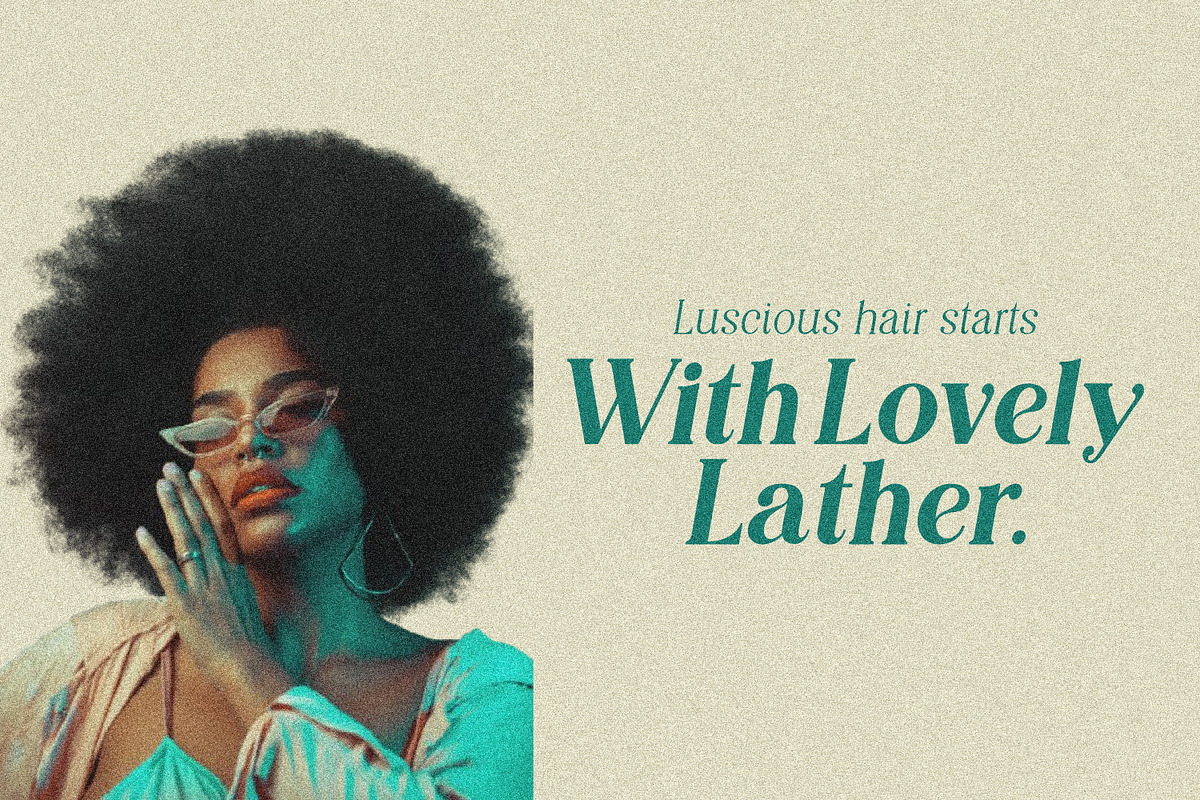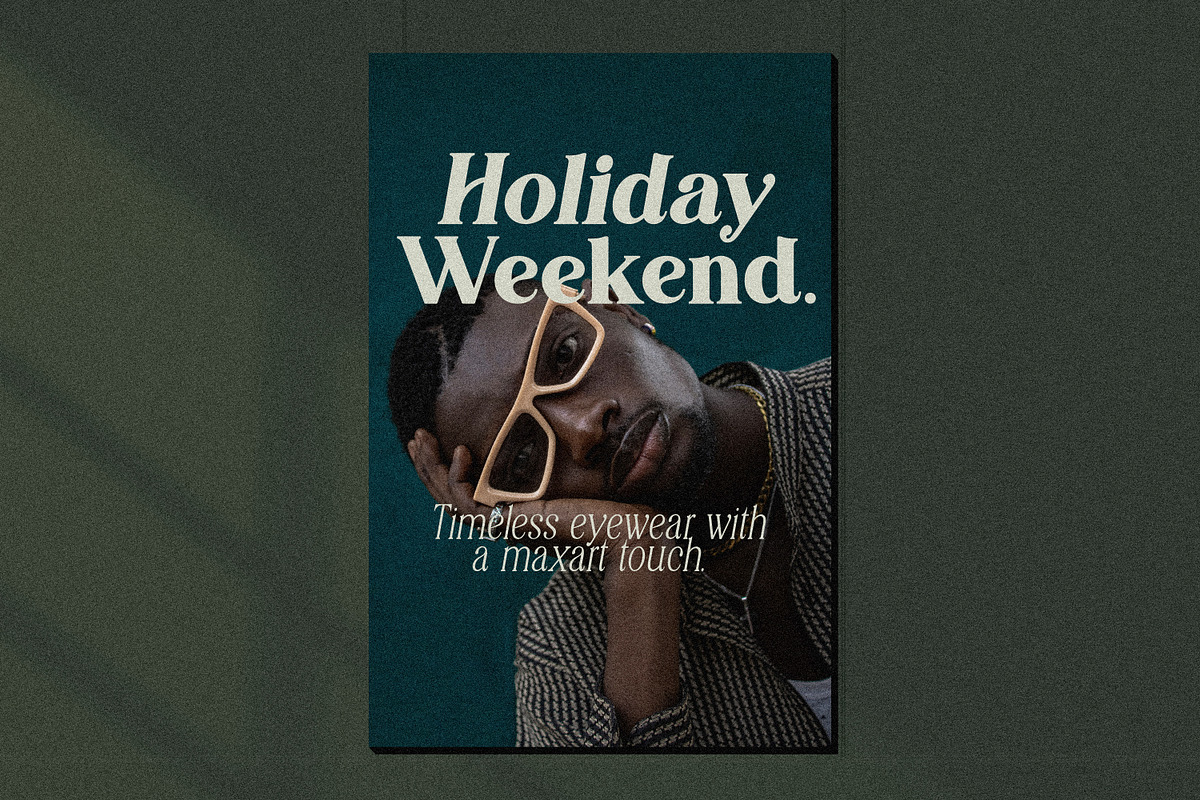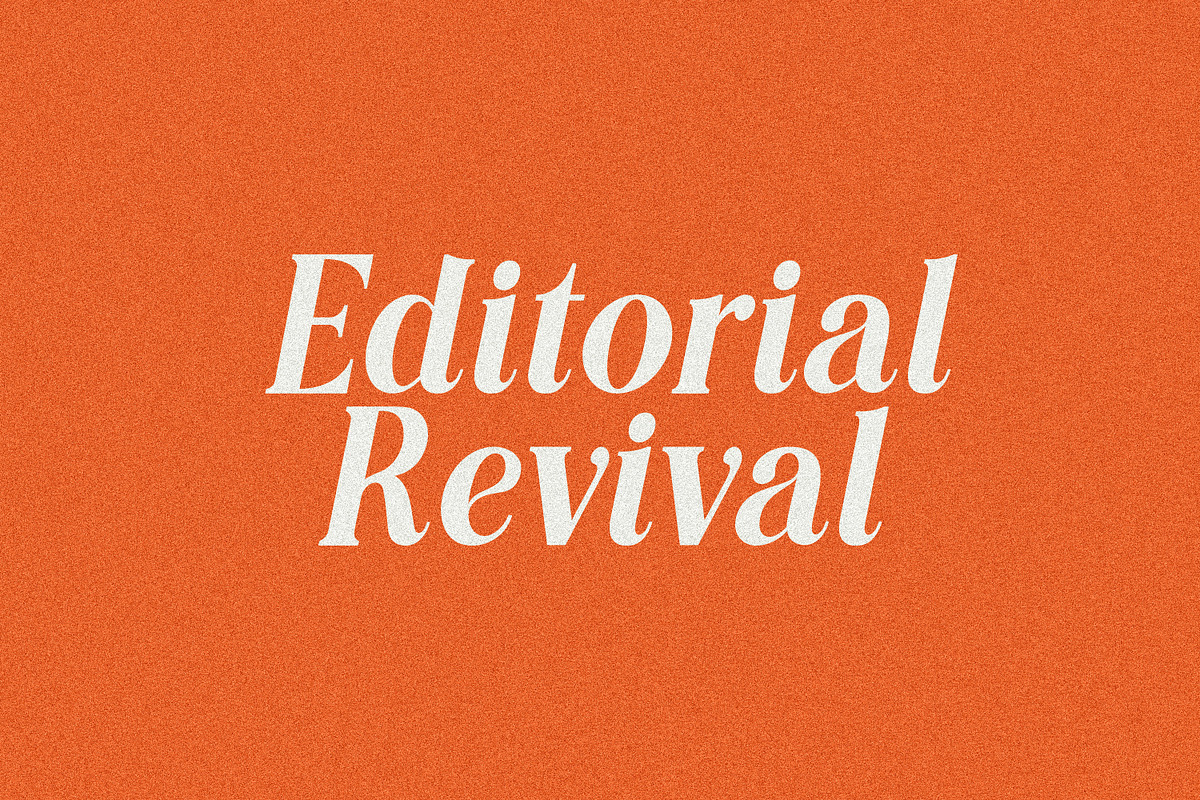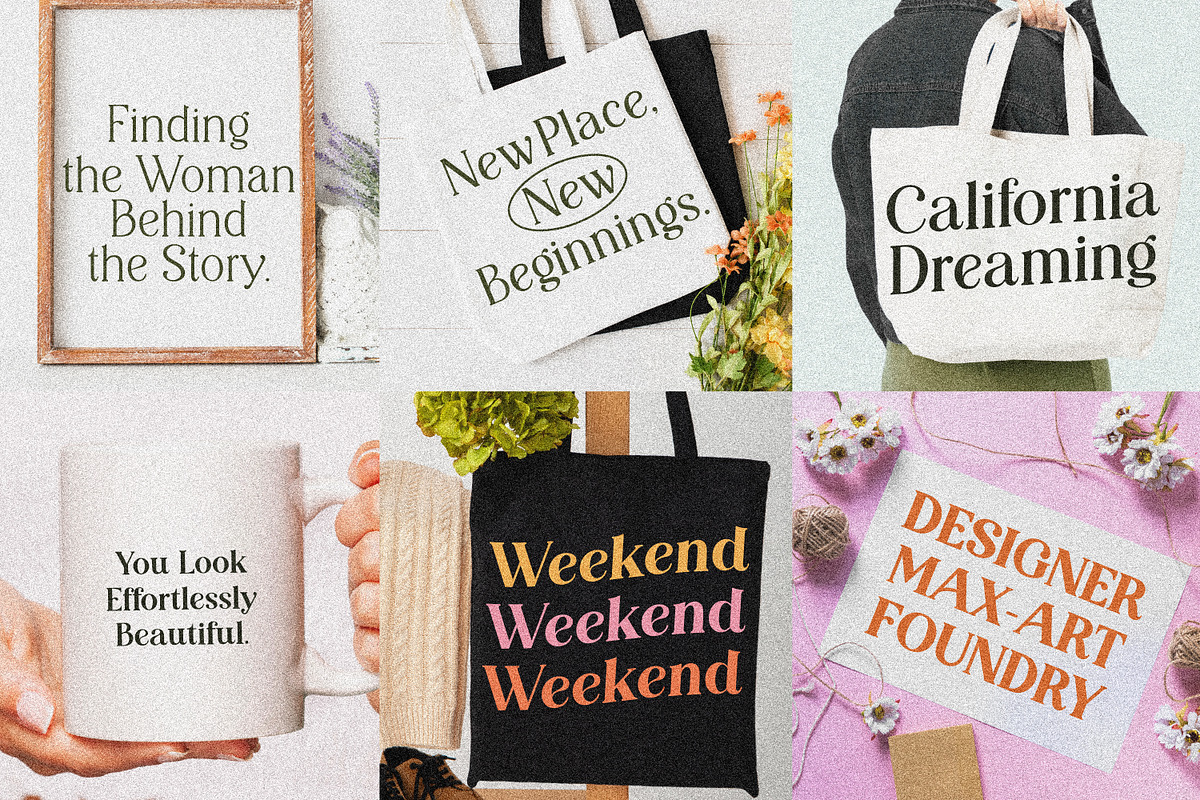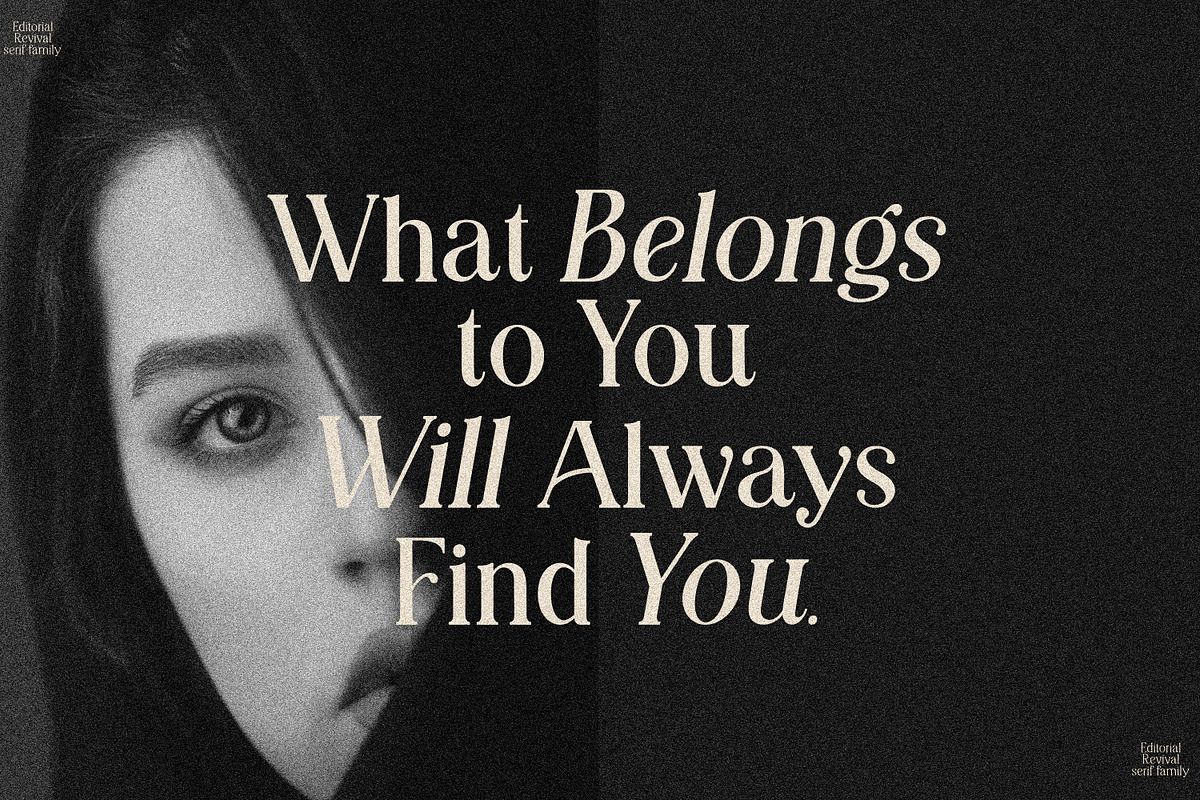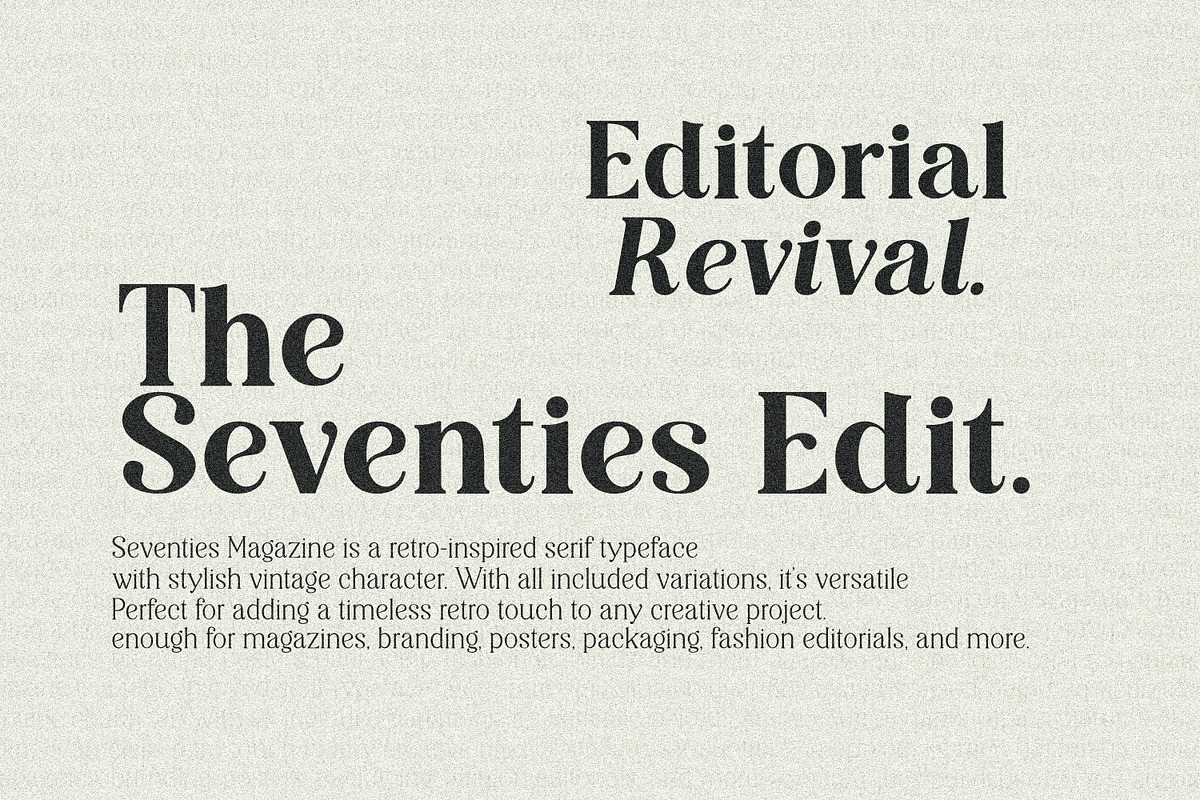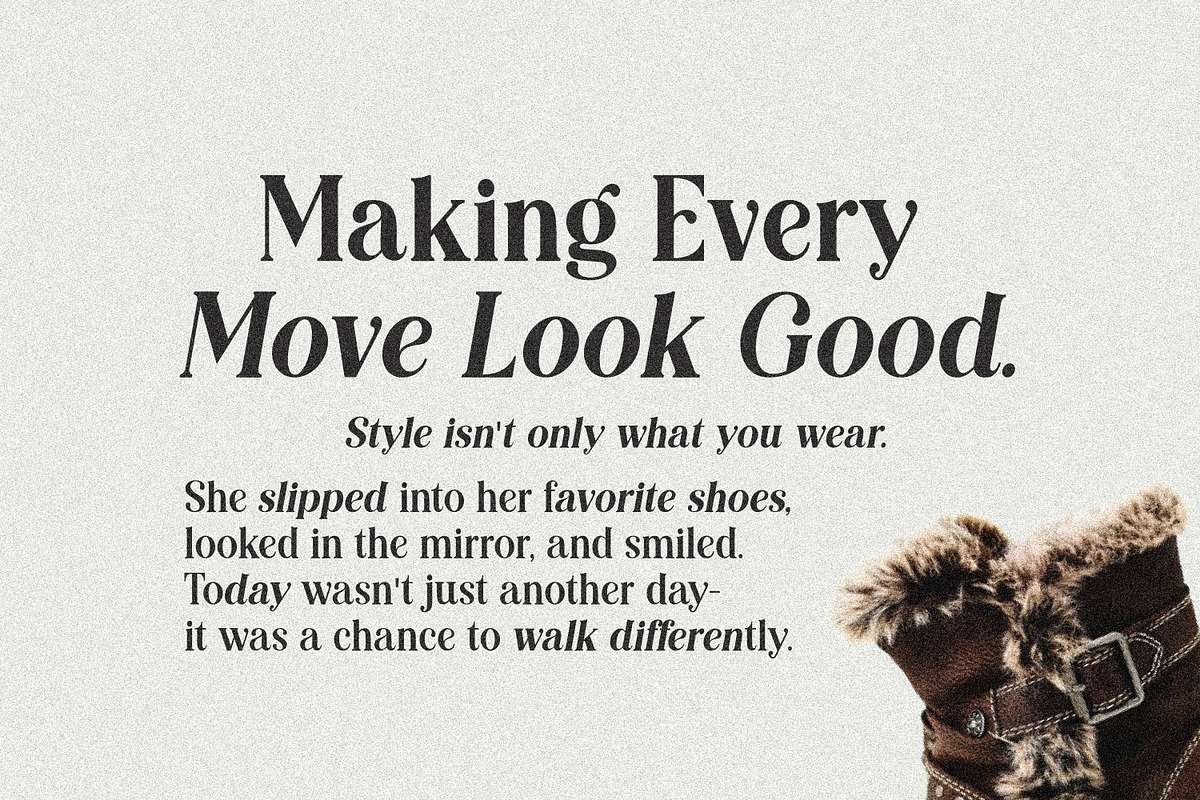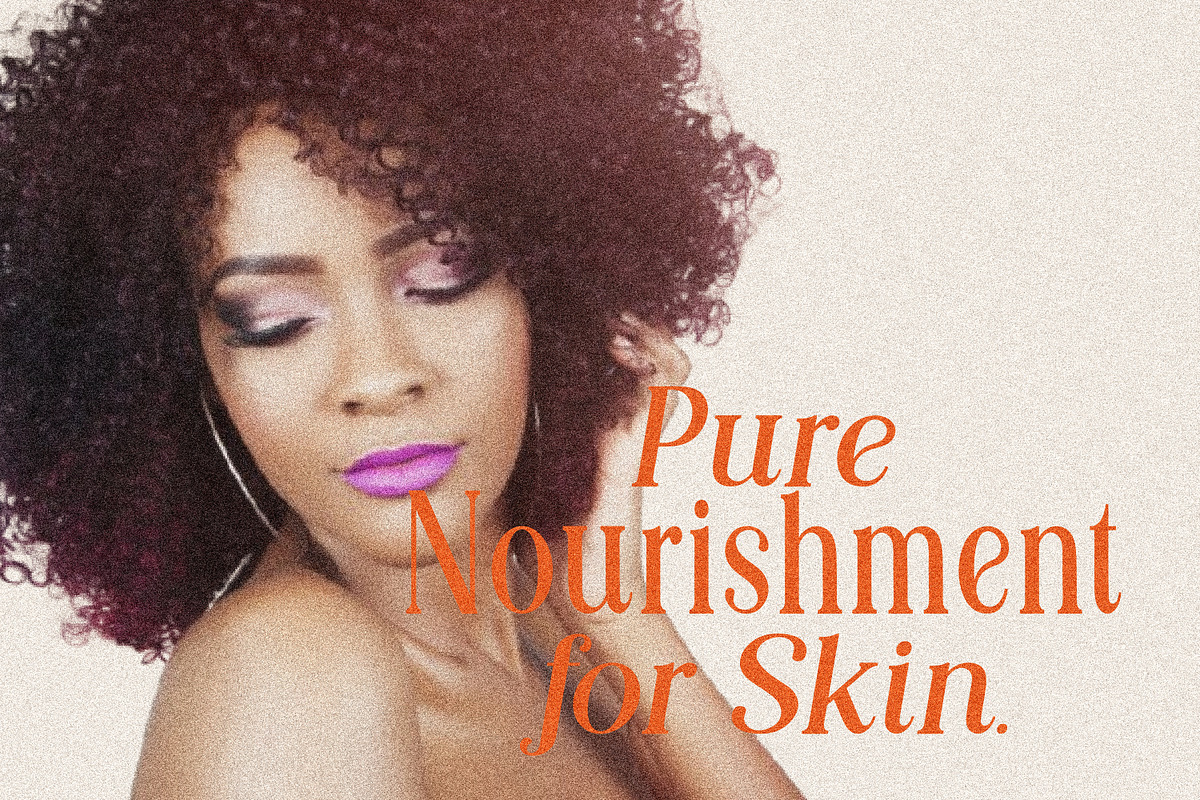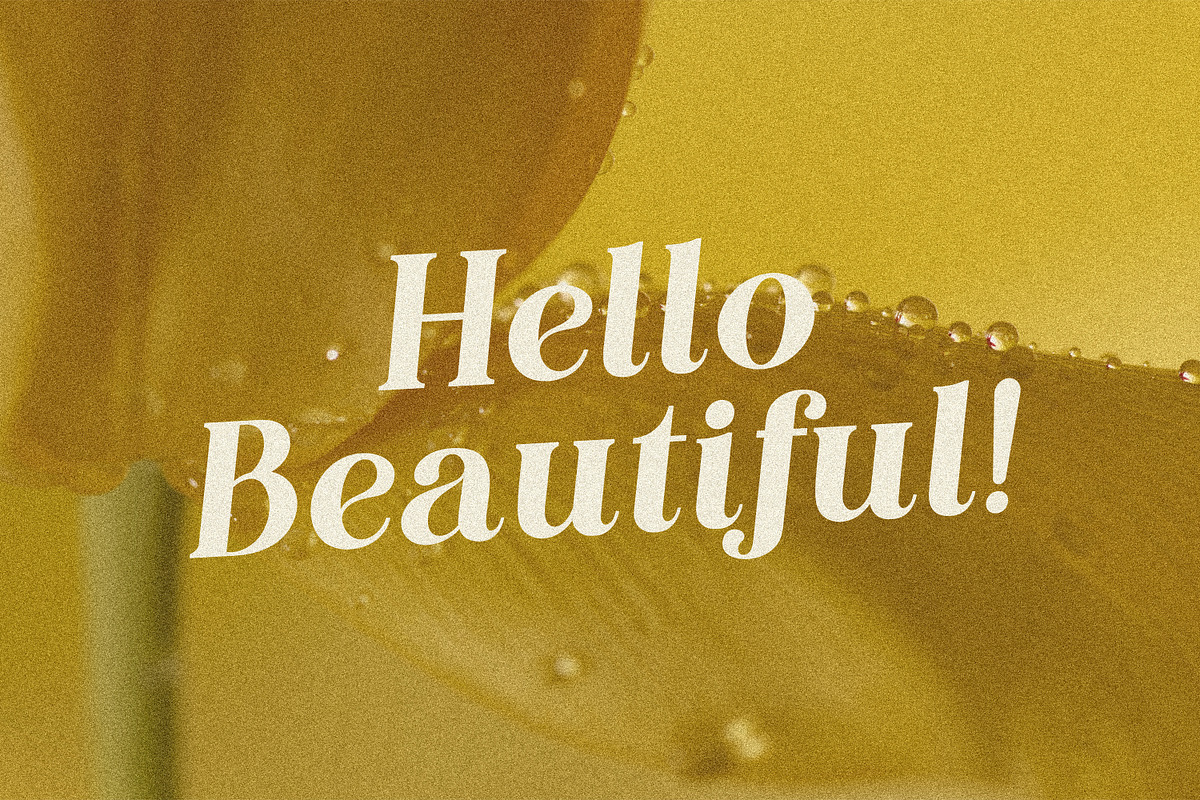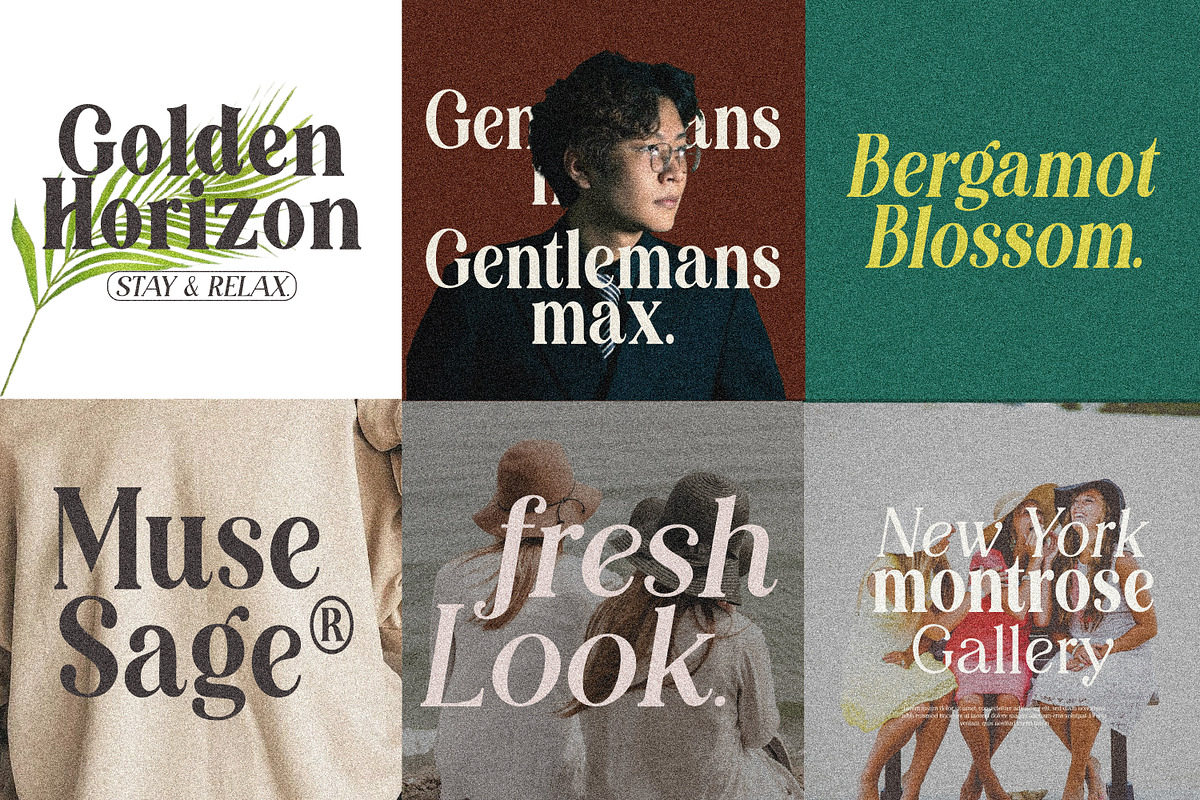
Editorial Revival Serif (70 fonts)
Hello, "Editorial Revival"— a refined and versatile type family created to bring personality, elegance, and flexibility to modern typography.
Designed with a strong editorial character and carefully crafted letterforms, this family gives you the freedom to create everything from sophisticated headlines and elegant branding to eye-catching posters, packaging, social media designs, and editorial layouts.
With multiple weights, styles, and width variations, Editorial Revival is made to adapt effortlessly to different moods and creative directions. From light and delicate compositions to bold and commanding statements, every style works together to give your typography more depth, contrast, and visual personality.
A Complete Type Family
The family includes a carefully balanced range of weights, from Light through Black, along with Italic and Bold Italic styles and a collection of unique variations.
The family also includes a range of widths, from Semi Condensed to Ultra Condensed, giving you greater control over space, proportion, hierarchy, and overall typographic expression.
Mix and match the different weights, styles, and widths to create contrast, hierarchy, and expressive typography — whether you're designing a refined editorial spread, a memorable brand identity, a striking poster, or a polished packaging concept.
Editorial & Magazine Design
Branding & Visual Identity
Logos & Headlines
Posters & Advertising
Fashion & Lifestyle Projects
Invitations & Stationery
Creative Display Typography
With a broad range of weights, styles, and width variations, Editorial Revival gives you everything you need to build a consistent yet expressive typographic system across different projects.
Whether you want something subtle and sophisticated or bold and attention-grabbing, this family is designed to give every project its own distinctive voice.